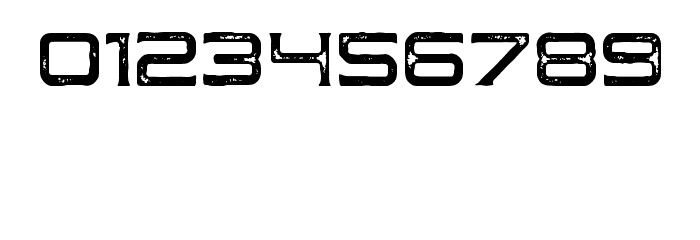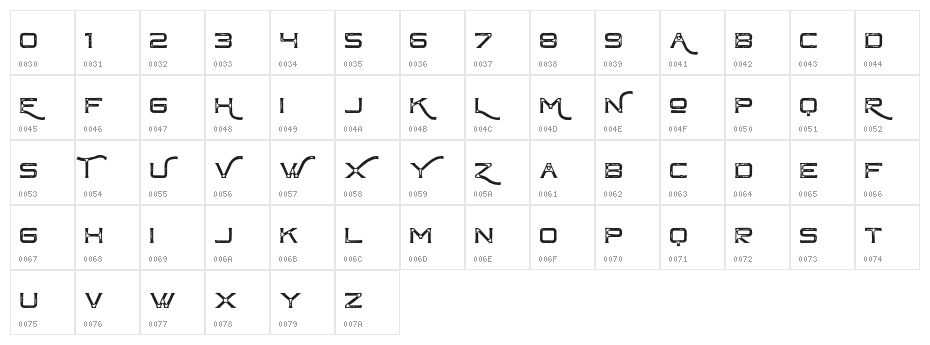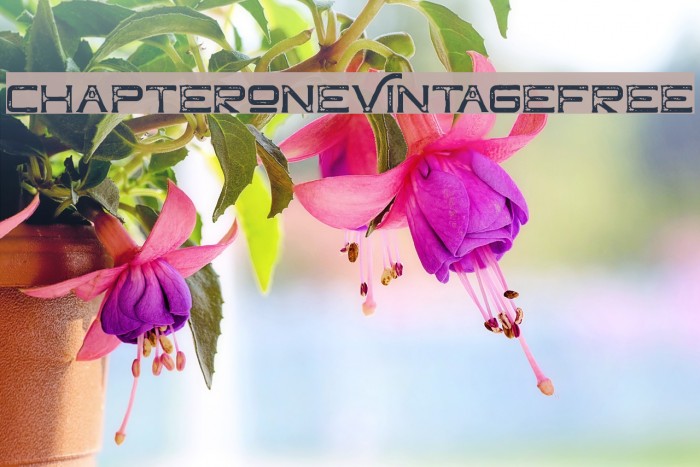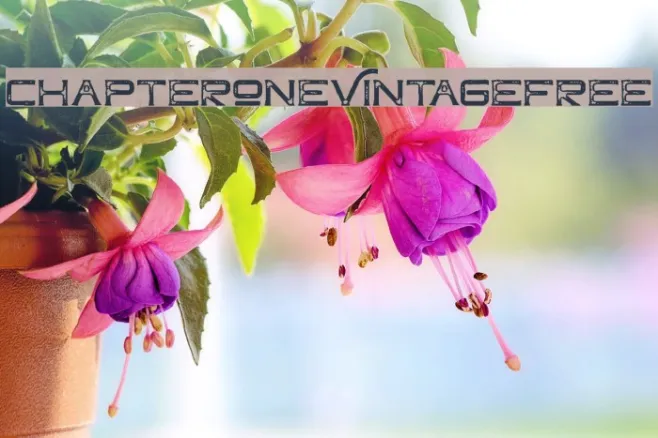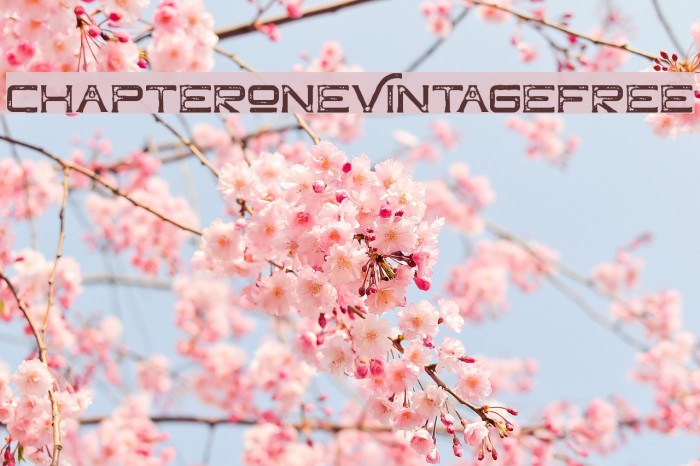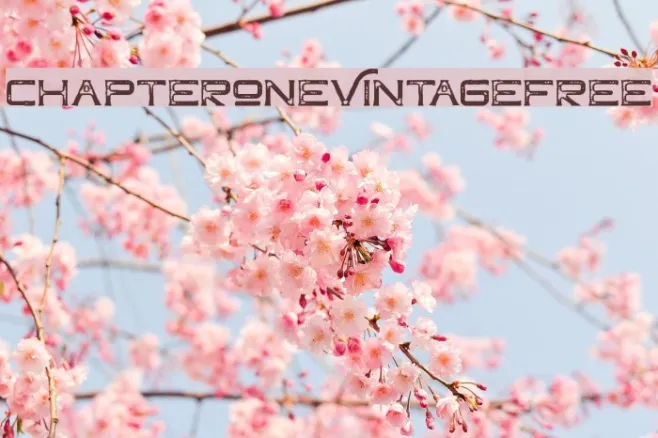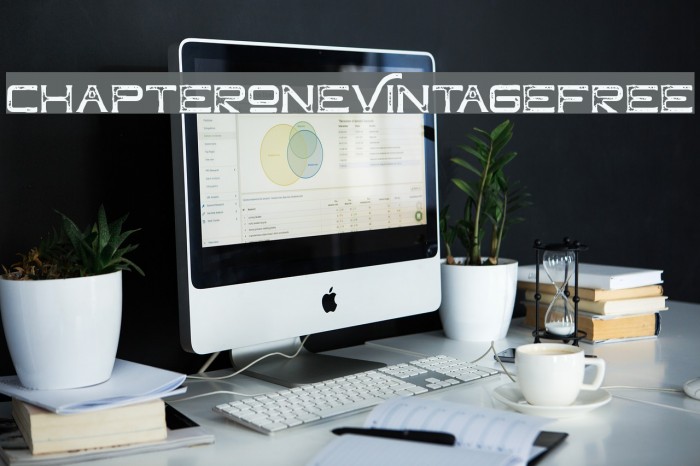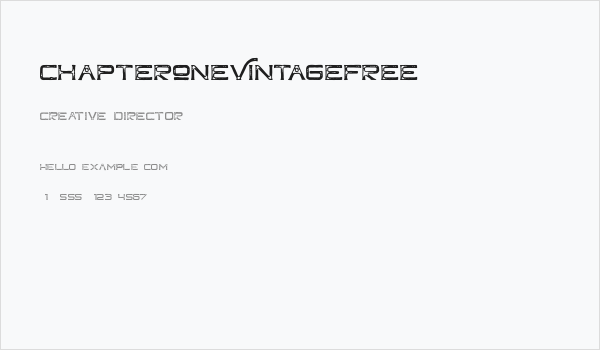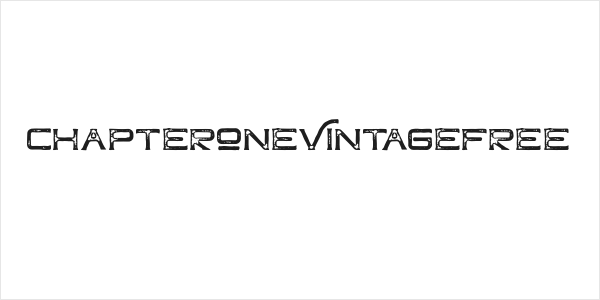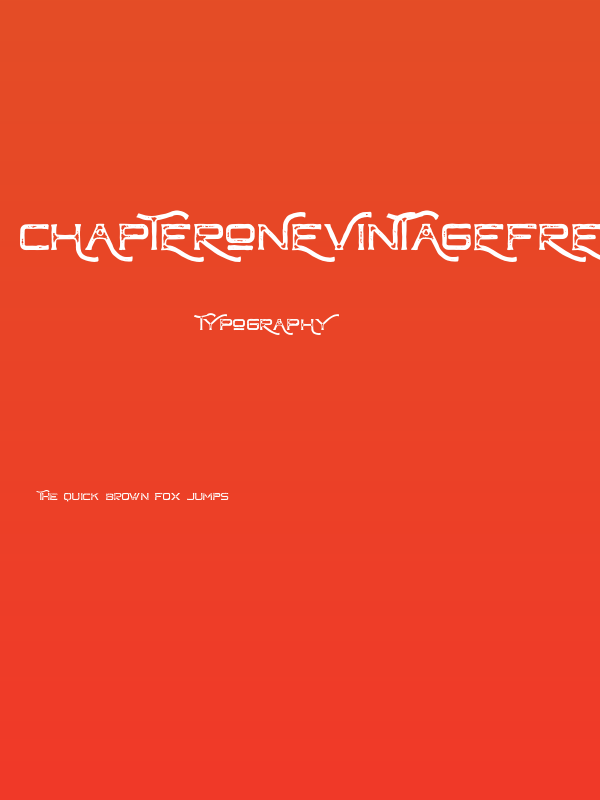
ChapterOneVintageFree Font
ChapterOneVintageFree Description
This font features a vintage, distressed style with a decorative flair. The uppercase letters have unique, artistic elements that give them a hand-crafted appearance, with some characters incorporating swashes and flourishes. The texture is rough, adding to the aged, worn look. The numbers and special characters maintain this distressed aesthetic, ensuring consistency across all glyphs. The overall design is reminiscent of old signage or vintage posters, making it ideal for projects that require a touch of nostalgia or a retro vibe.
| Proposed Projects | Ideal for vintage-themed posters, retro branding, event invitations, and creative packaging designs. |